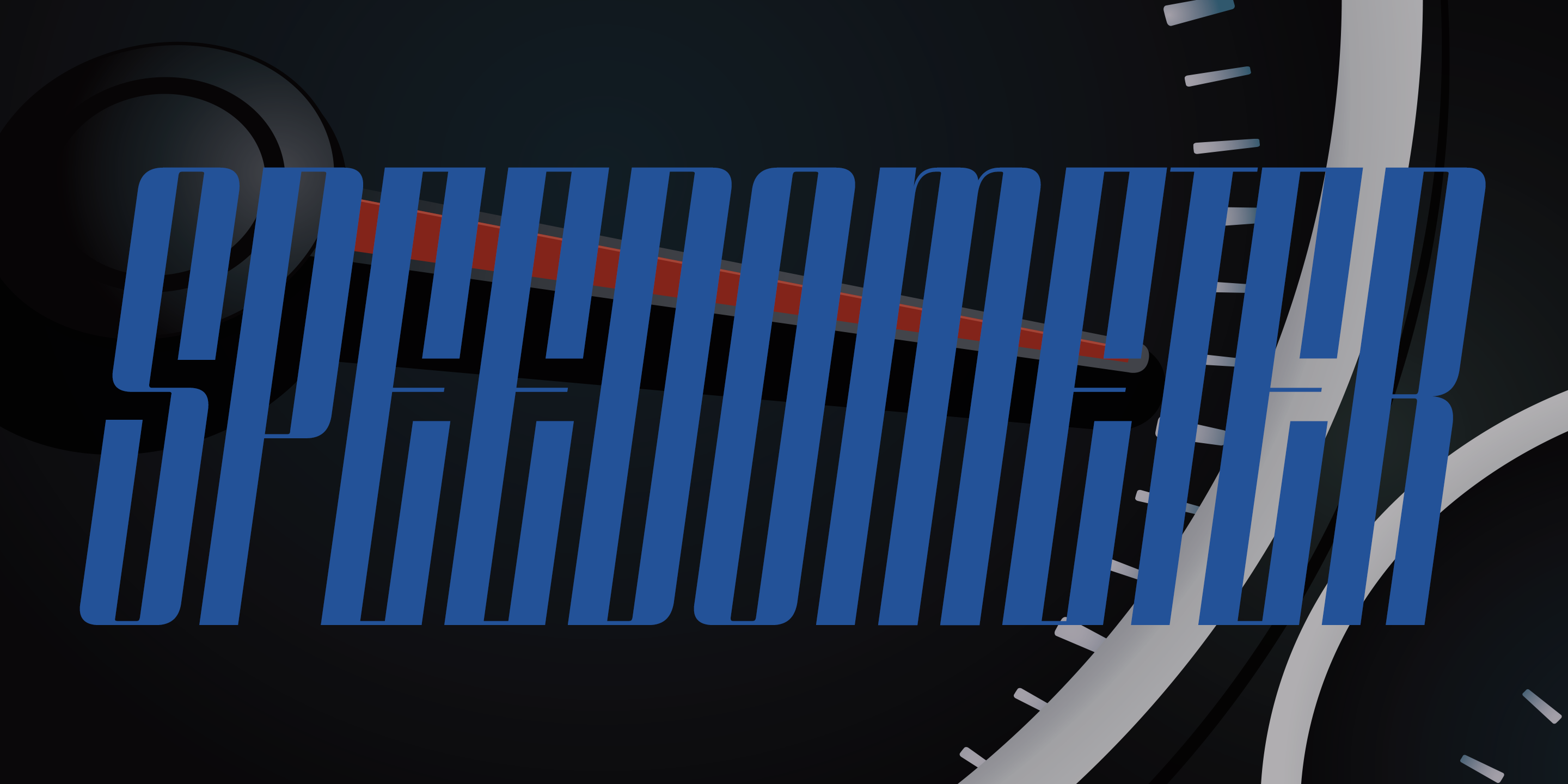
Speedometer Font is perfect for dashboard design interfaces, performance measurement graphics, data visualization dashboards, fitness tracking applications, sports analytics presentations, speed monitoring systems, metric display panels, and precision measurement communications.
This font is exciting because it embodies accuracy and performance measurement with precise, calibrated letterforms that reflect the essential role of measurement in achieving peak performance and optimal results. The Speedometer Font captures the essence of data-driven excellence and quantified progress, transforming ordinary text into powerful metric displays that inspire achievement and performance optimization across all measurement applications.
The Speedometer Font family includes measurement-focused variations such as Regular, Bold, Light, Digital, Italic, Precision, Condensed, and Extended versions, providing data visualization designers with comprehensive tools to create authentic measurement typography that celebrates precision engineering and performance tracking across all analytical applications.
Measure success with Speedometer Font Free Download that brings precision accuracy to every performance-focused design project. This analytically crafted typeface combines measurement aesthetics with contemporary functionality, making it perfect for fitness companies, analytics platforms, and organizations focused on performance optimization and data-driven results. The font's precise character design ensures your message conveys accuracy and reliability while maintaining excellent readability across all measurement applications. Whether you're developing fitness tracking interfaces, creating performance dashboards, or designing materials that celebrate measurable achievement, Speedometer Font delivers the precision typography that resonates with audiences who value quantified progress and data-driven improvement. Its versatile design works effectively across digital and print media while preserving the analytical precision that makes measurement communications feel genuinely authoritative and worthy of the trust that performance optimization requires.